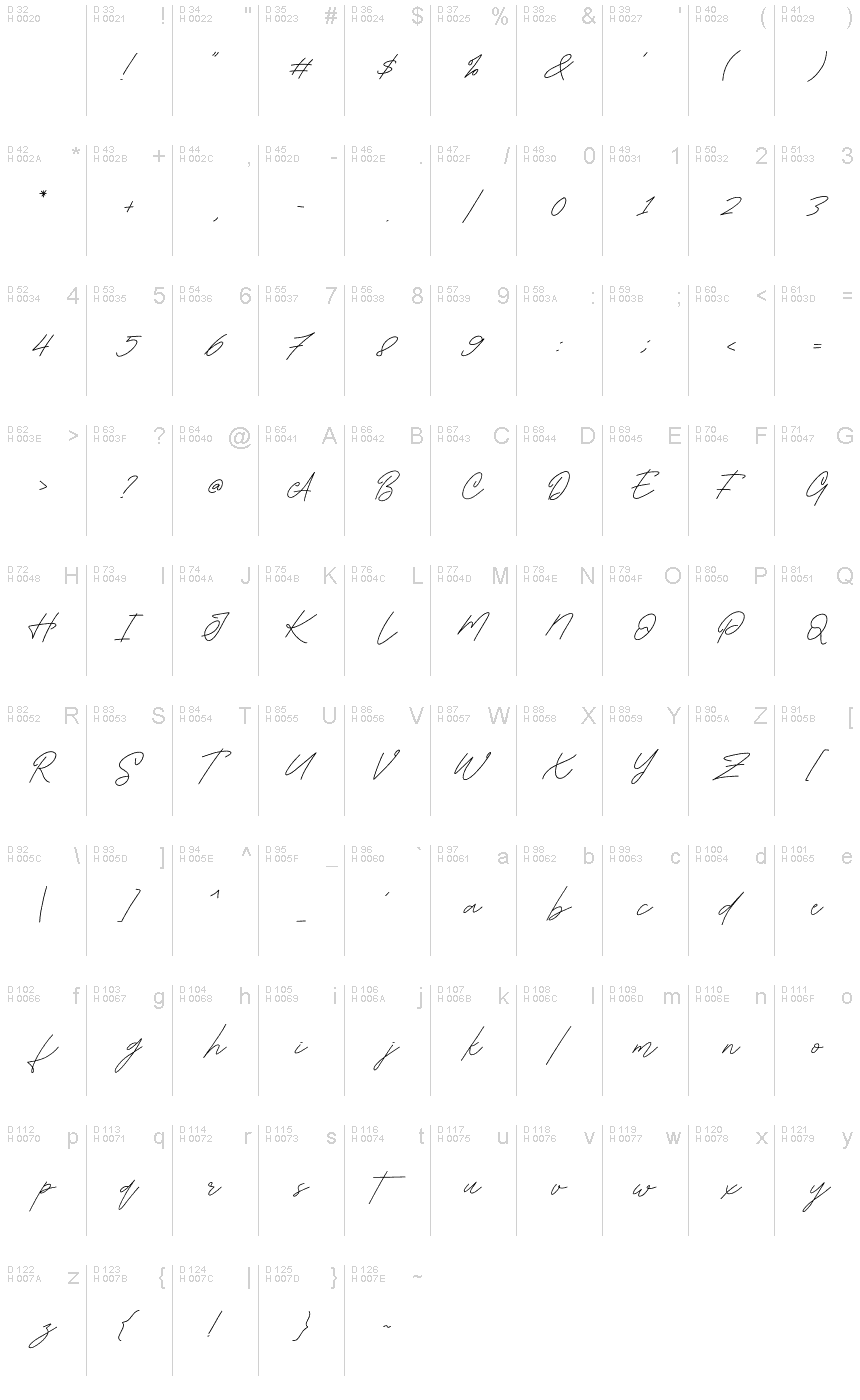
HOLLY SIGNATURE DEMO
Holly Signature, a modern handwritten font by Elbanadha Creative, adds a touch of elegance to any project.
With its semi-light weight, this font is perfect for creating logos and branding materials that exude sophistication. Use it to design homeware products or packaging that will catch the eye of your customers. Create stunning quotes and posters that inspire and motivate. Dress up shopping bags and t-shirts with this beautiful script for a stylish look. Design book covers and name cards that leave a lasting impression. Make your special events even more memorable with Holly Signature on invitations, greeting cards, and labels.
Add a personal touch to your photography or use it as a watermark to protect your work. The possibilities are endless with this versatile font!